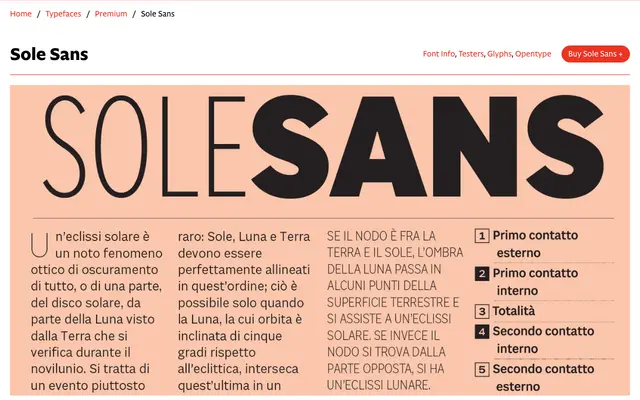
Sole Sans
CAST · Riccardo Olocco, Luciano Perondi · 2018
Sole Sans specimen from CAST
A large newspaper sans commissioned for Il Sole 24 Ore, built across five widths and nine weights with early 19th-century grotesque details at arch-to-stem junctions.
Designed by Riccardo Olocco and Luciano Perondi for the Italian financial daily Il Sole 24 Ore, where it has been in use since June 2018 alongside the companion Sole Serif. The family spans five widths from ExtraCondensed to Extended, each running across nine weights from Thin to Black with matching italics, making it suited to everything from dense headline setting to small diagrams and tabular data. Contrast at the junctions between arches and stems, drawn from early 19th-century sanserif models, gives the design a raw, slightly brutal texture that distinguishes it from more neutral contemporary grotesques.
Inspired by early 19th-century sanserifs, Sole Sans draws on the grotesque tradition with contrast at arch-to-stem junctions that gives it a primitive, proto-grotesque character distinct from neutral modernist sans designs.